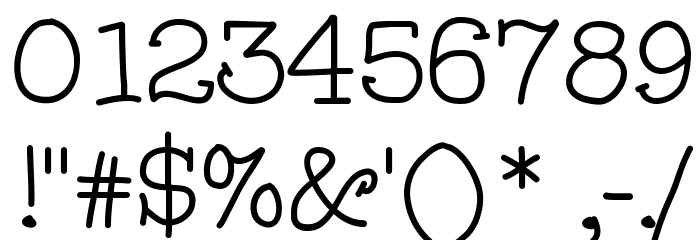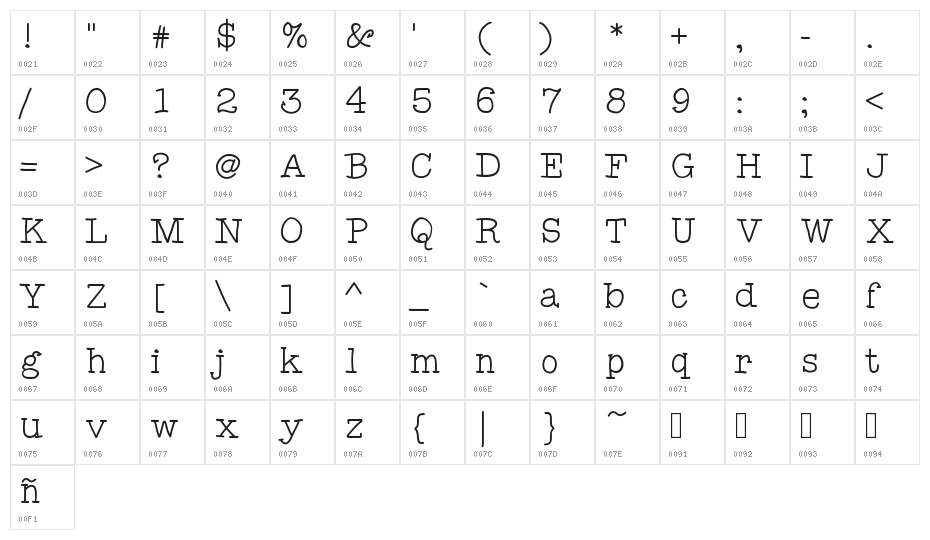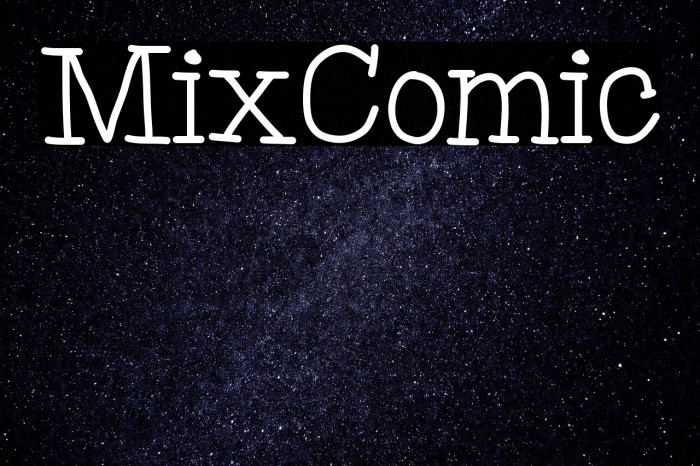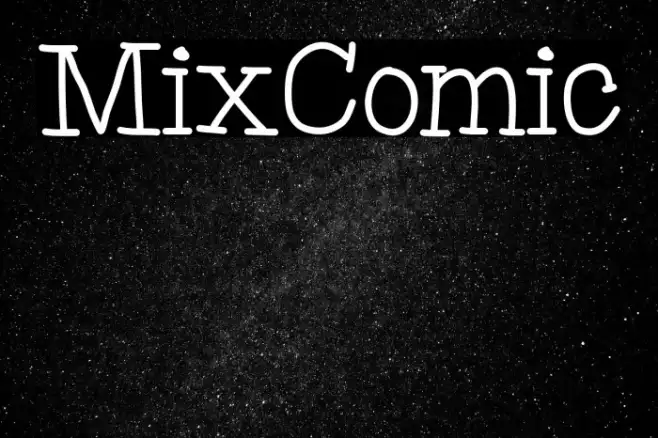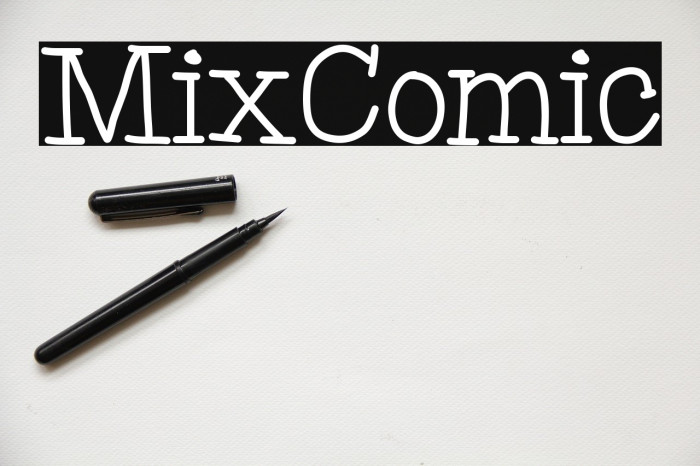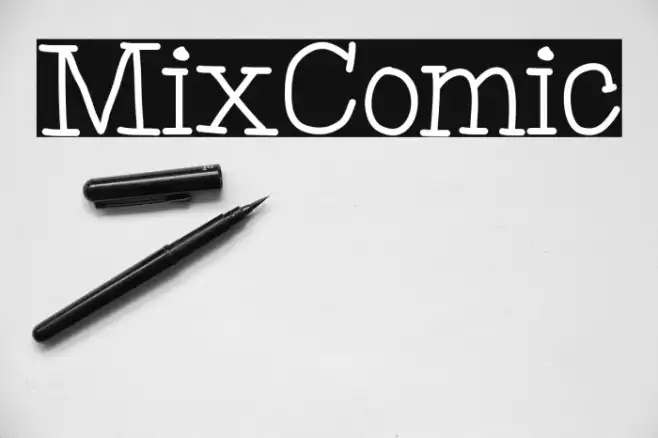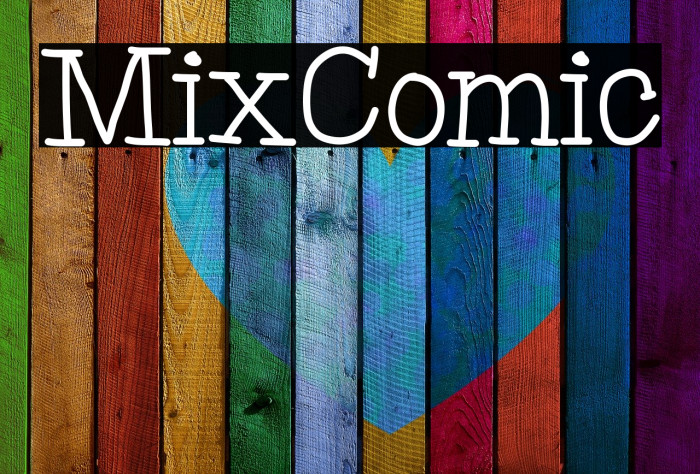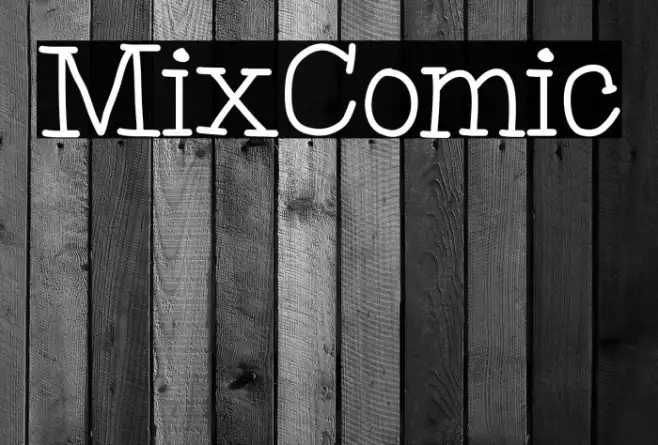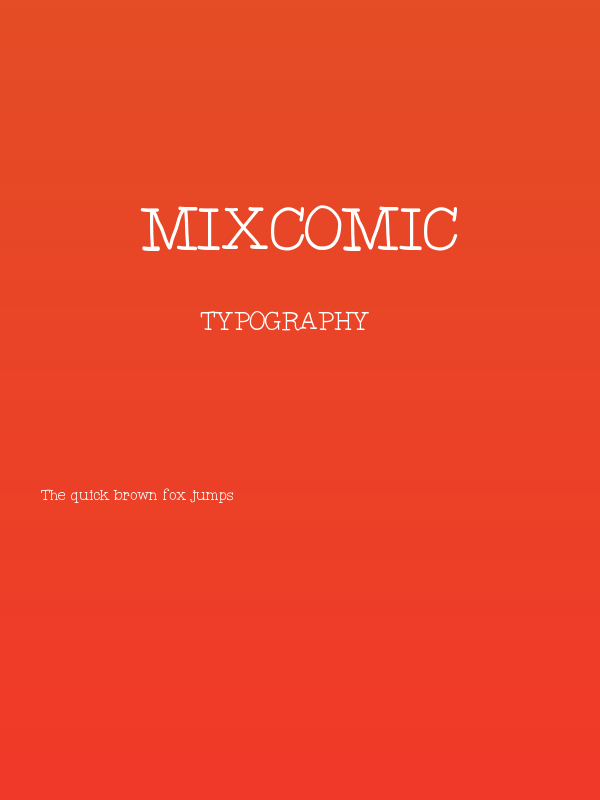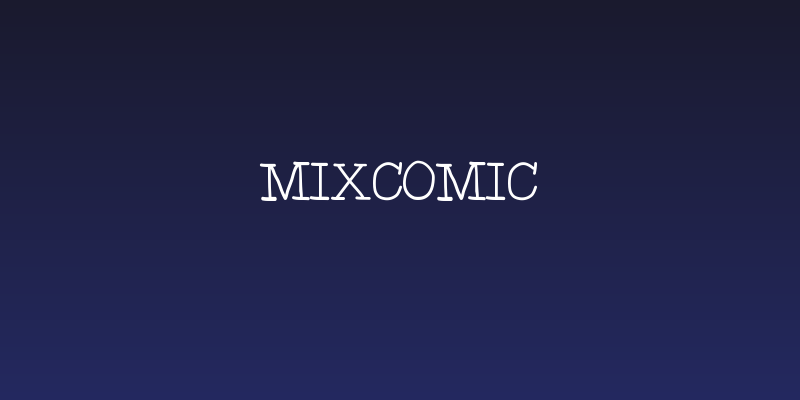
MixComic Font
MixComic Description
This font exudes a playful and whimsical charm, characterized by its irregular, hand-drawn appearance. The letters have a slightly uneven baseline, adding to the casual and informal feel. Each character is distinct, with rounded edges and a slight bounce that gives it a lively personality. The uppercase and lowercase letters maintain a consistent style, while the numerals and special characters blend seamlessly with the overall design. This font is perfect for projects that require a touch of fun and creativity, making it ideal for comic books, children's books, and playful branding.
| Use Case | Headlines, Logos, Informal text |
| Proposed Projects | Comic books, children's books, playful branding, greeting cards, and informal invitations. |